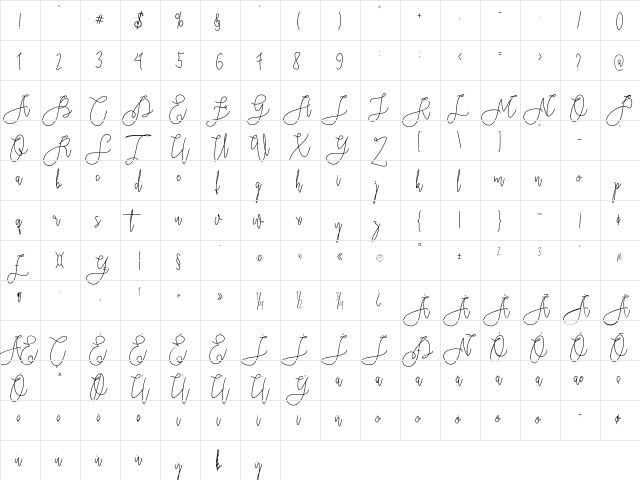
Rieesflomeo Regular
| Foundry | khairul |
| Designer | khairul |
Design Context for Rieesflomeo Typeface
Rieesflomeo is a composed and adaptable typeface that performs quietly and consistently across a wide range of design contexts.